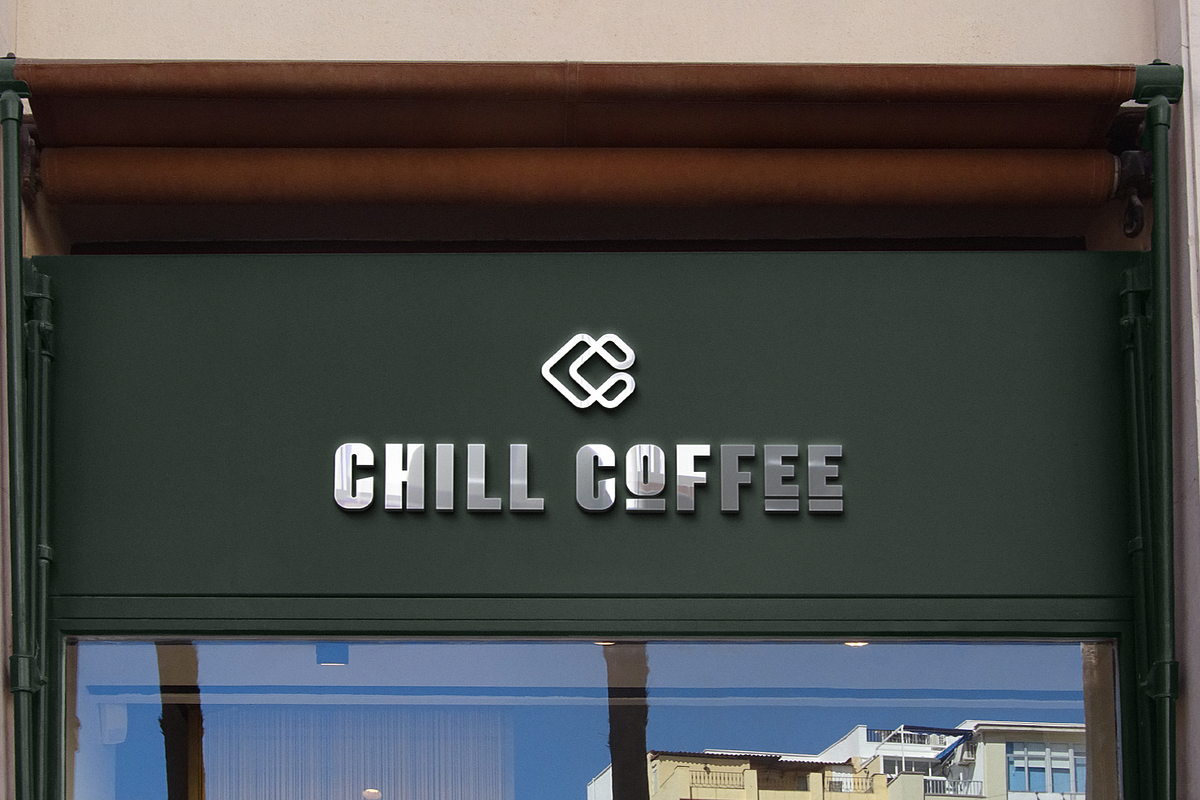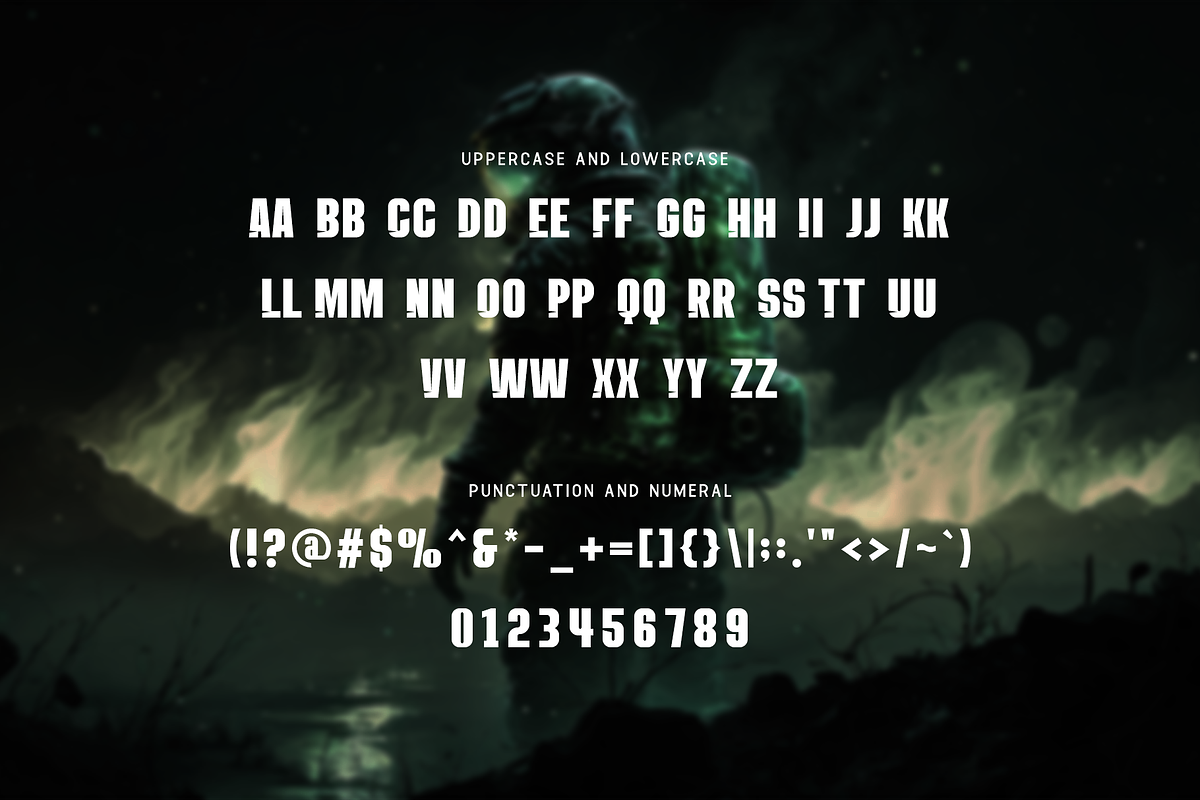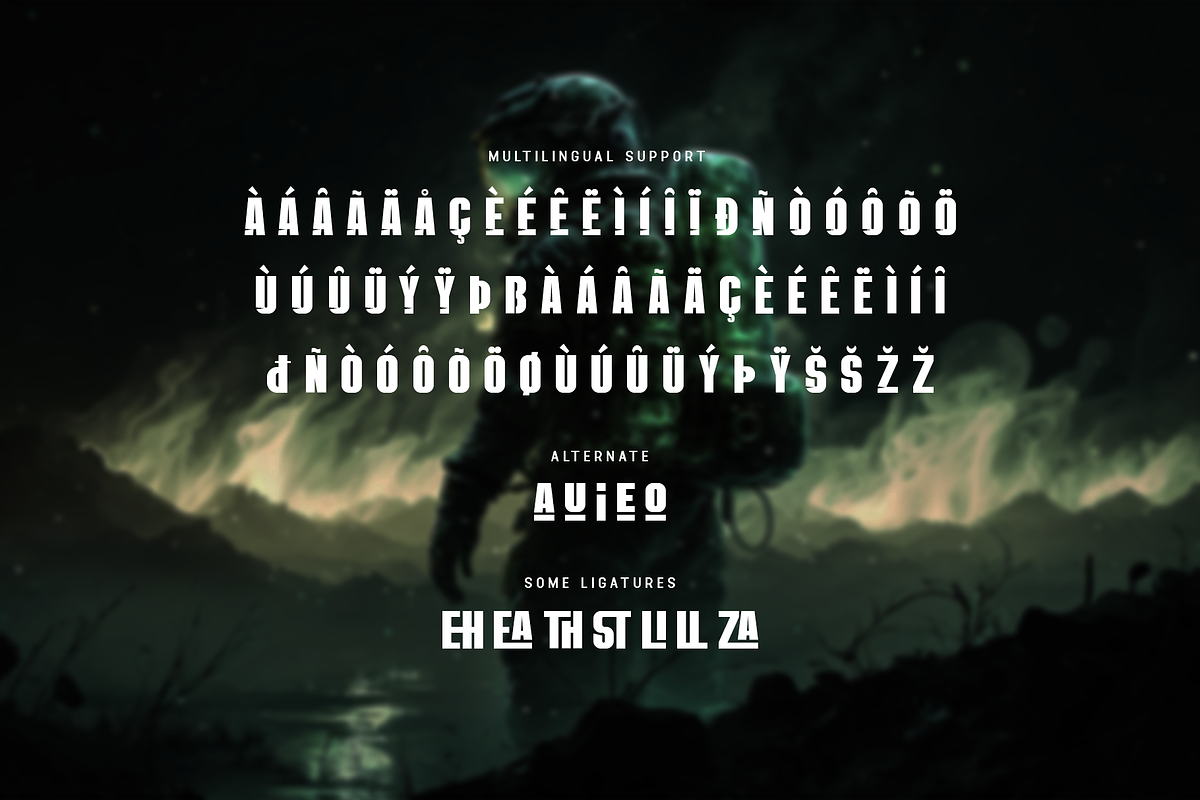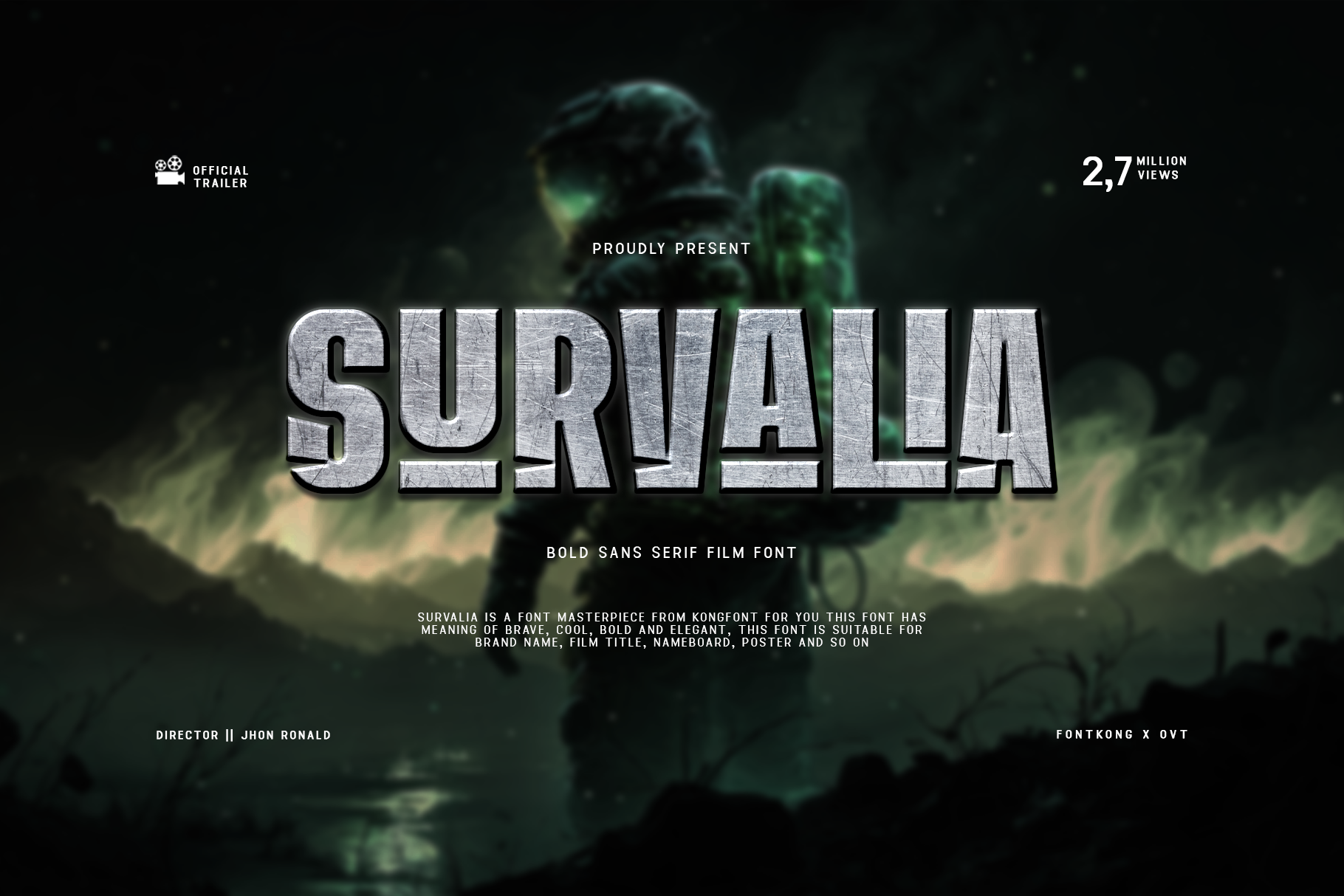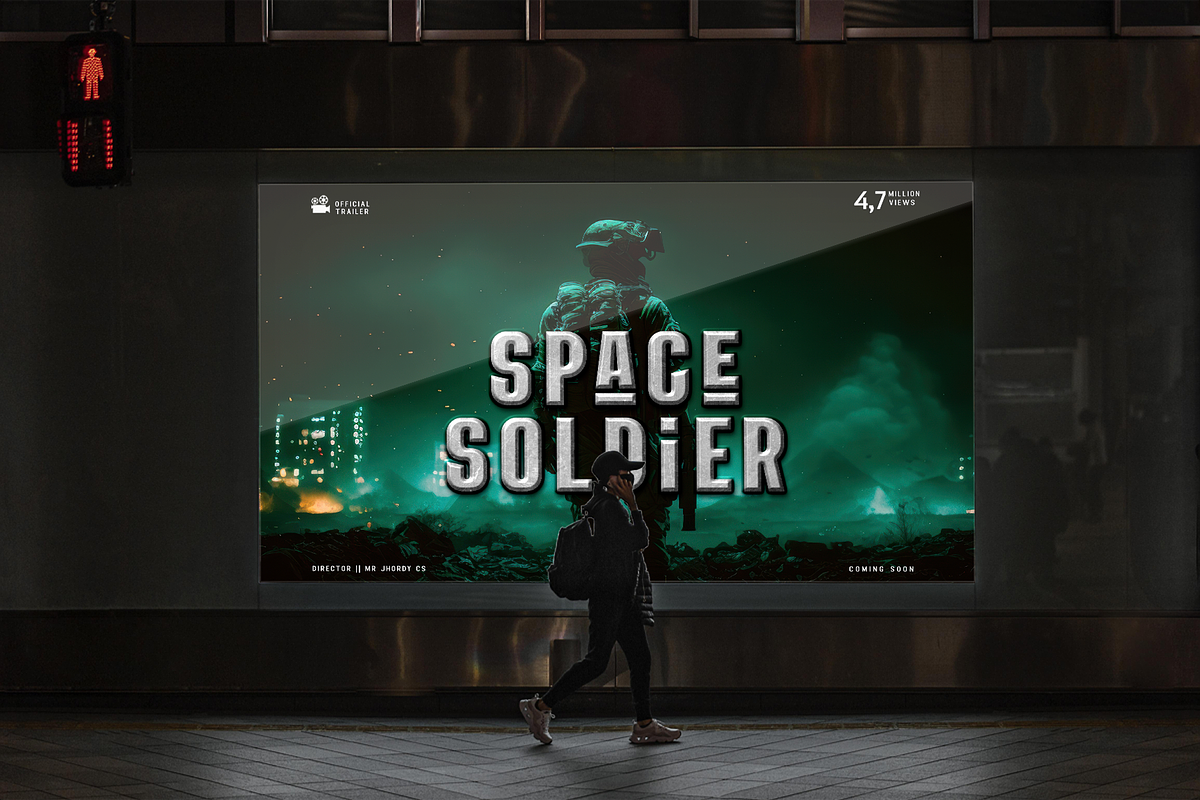
Survalia - Bold Sans Serif Film Font
Make a bold statement with "Survalia," a sans serif film font designed to command attention on the big screen. With its strong lines and impactful presence, Survalia adds a touch of drama and intensity to your film titles, posters, and promotional materials.
Crafted with precision and style, Survalia embodies the spirit of cinematic storytelling with its bold and dynamic aesthetic. Whether you're creating movie titles, credit sequences, or promotional banners, this font demands attention and leaves a lasting impression.
Featuring uppercase letters, numbers, and punctuation marks, Survalia offers versatility and flexibility for all your film-related projects. Its bold design ensures that your typography stands out on the big screen, making your message heard loud and clear.
Make your mark in the world of cinema with the bold sans serif style of Survalia.